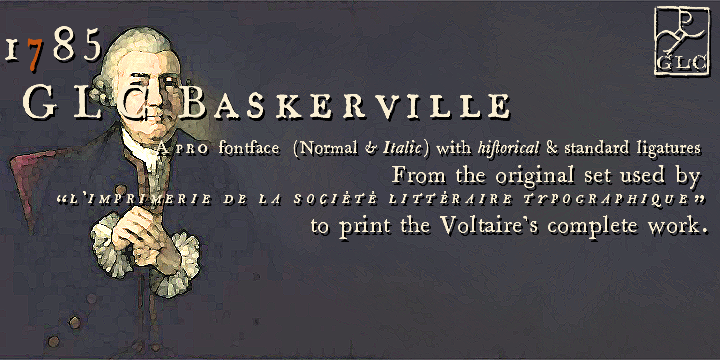
1785 GLC Baskerville Font is perfect for French historical manuscripts, classical literature publications, prestigious French wine labels, elegant château tourism branding, French heritage museum exhibitions, traditional French restaurant menus, refined French cultural institutions, authentic French period drama productions, distinguished French academic publications, and luxury French lifestyle brand identities. Its distinguished French classical character makes it ideal for projects requiring French historical authenticity and Enlightenment-era sophistication.
What makes 1785 GLC Baskerville Font exciting is its authentic embodiment of French Enlightenment elegance and classical typography with historical letterforms and period-accurate characteristics that capture the essence of 18th-century French cultural refinement and intellectual excellence. The font features traditional French proportions, period-inspired details, and classical character construction that create authentic historical atmosphere and French cultural appeal. Its distinguished personality brings scholarly credibility and French sophistication to contemporary designs while maintaining the clarity essential for cultural communications and historical presentations. The carefully crafted classical elements ensure historical accuracy while preserving the distinctive character that embodies the essence of French heritage and Enlightenment excellence.
1785 GLC Baskerville Font comes in multiple historical variations including Light, Regular, Medium, Bold, and Classical styles. Each family member maintains the distinctive French character while offering comprehensive flexibility for historical typography and French cultural brand system development. The complete font family includes French punctuation marks, historical symbols, and classical decorative elements that provide essential tools for authentic French communication excellence and cultural presentation quality.
Whether you're developing French cultural brands, historical publications, or heritage preservation projects, 1785 GLC Baskerville Font Free Download provides the classical authenticity needed to communicate with French culture enthusiasts and historical scholars who appreciate French heritage and Enlightenment sophistication. The font's historical appeal resonates with French historians, cultural professionals, and heritage educators seeking authentic French credibility and classical sophistication. Its comprehensive character set includes French symbols and historical marks, making it perfect for creating complete French cultural brand systems and memorable historical storytelling across diverse cultural applications and heritage-focused design projects that celebrate French civilization and classical excellence.